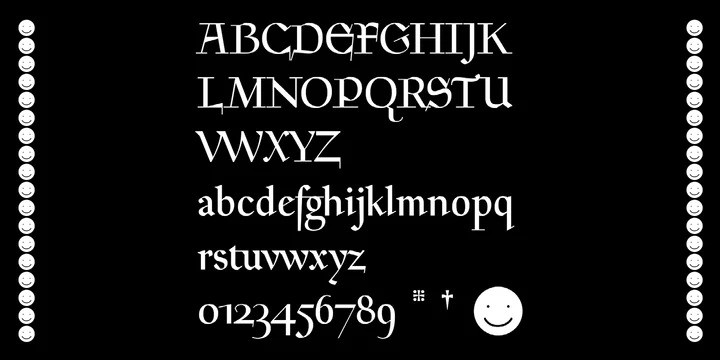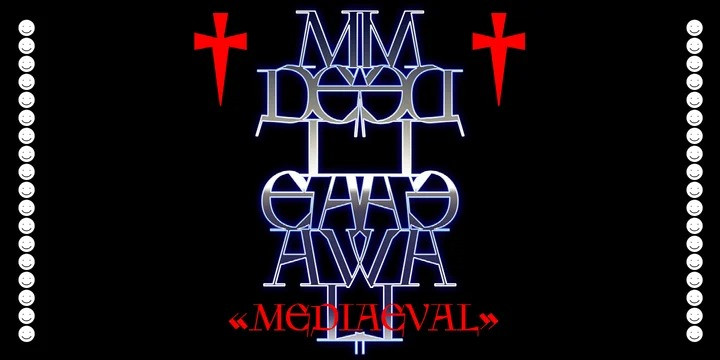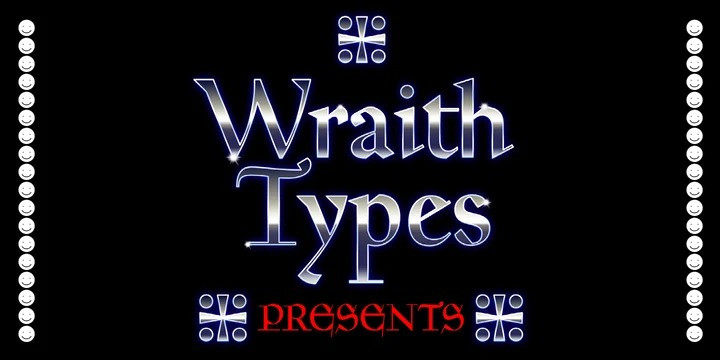
WT Mediaeval Font
WT Mediaeval Serif Font
It’s a serif font with a living past, which combines its ancient roots, bringing the handmade to the contemporary in a spirited mix that evokes elegance and strength. It’s a revival of a font designed by Goudy in the 1920’s. It is medieval in its structure, but we tried to revive it with a digital, modern twist.
If you’re looking for a fantasy / medieval typeface that does not look like it was actually made 200 years ago, WT Mediaeval is here for you! It’s quite literally a fantasy typeface designed for modern times!